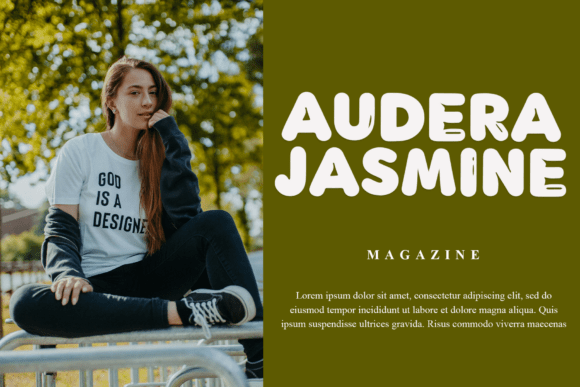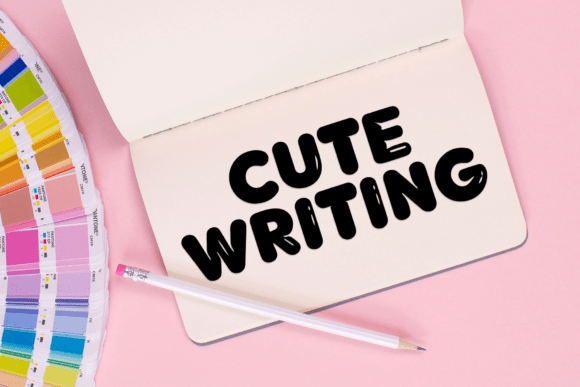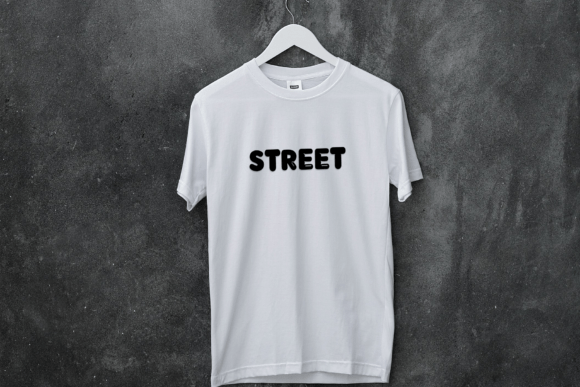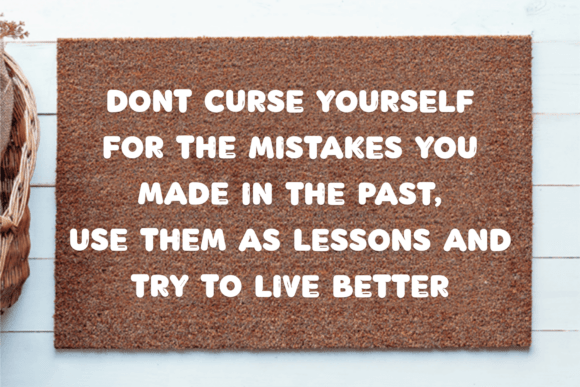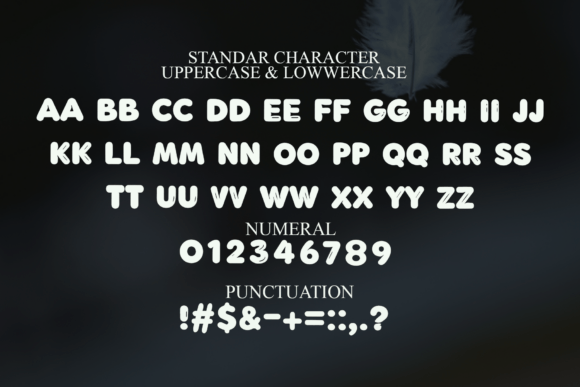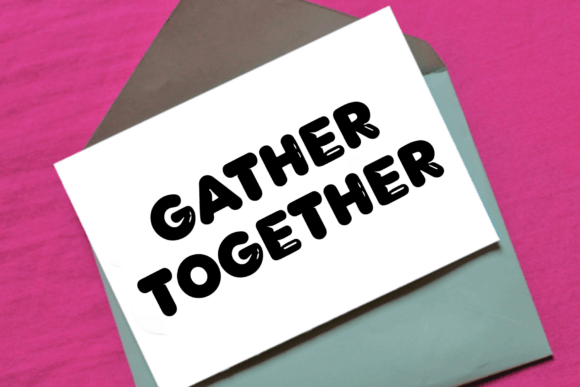
Introduction to Kawaii Bubble Font
Have you ever stumbled upon the perfect font that instantly elevates your design project? For many creatives, this moment is a game-changer. It’s the spark that ignites a new idea, a fresh perspective, and a dash of excitement. For those seeking a high-quality font that embodies warmth and friendliness, the Kawaii Bubble Font is an ideal choice. This charming font boasts a playful, hand-drawn aesthetic that’s perfect for personal projects, invitations, and social media graphics.
As a valuable design resource, the Kawaii Bubble Font offers a unique touch that sets your work apart from the rest. Its transparent background and round strokes create a relaxed and approachable feel, making it an excellent choice for designers looking to add a creative twist to their projects. And the best part? This versatile font is available for free download, making it an accessible and essential addition to any design toolkit.
Key Features of Kawaii Bubble Font
- Unique Kawaii design aesthetic with cute and playful bubble shapes, perfect for creative projects that require a high-quality, whimsical touch.
- Transparent background, allowing for easy customization and versatility in design applications.
- Perfect for creating eye-catching titles, headings, and graphics in various creative projects, including digital art, graphic design, and craft projects.
Honest Review: Kawaii Bubble Font
As a designer, I’m always on the lookout for unique and high-quality design resources to elevate my creative projects. Recently, I had the chance to try out the Kawaii Bubble Font, and I’m excited to share my honest review.
What works well: ✨ The Kawaii Bubble Font is a delightful addition to any design project. Its playful, bubble-like characters add a touch of whimsy and fun to even the most mundane designs. The font is available for free download, making it a fantastic resource for designers on a budget.
What works well: ✨ The font is available in a transparent background version, which is perfect for designers who want to create seamless and professional-looking designs. The high-quality design and crisp lines make it easy to work with.
Limitations: ⚠️ One potential drawback of the Kawaii Bubble Font is its limited character set. While it’s perfect for short text, it may not be the best choice for longer blocks of text. Additionally, some users may find the font’s playful nature to be overwhelming.
Overall impression: I was pleasantly surprised by the Kawaii Bubble Font’s high quality and versatility. It’s a great resource for designers who want to add a touch of fun and creativity to their projects. Just be aware of its limitations and use it judiciously.
- Limited character set
- May be overwhelming for some users
The Kawaii Bubble Font is suitable for various creative projects, such as:
– Social media graphics
– Blog posts
– Marketing materials
– Educational resources
– Personal projects